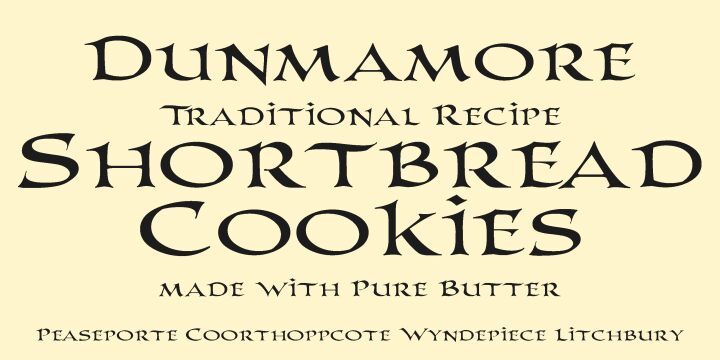
PR-Columban from PR Fonts is a free Celtic Gothic display font with the broad, stately shapes of manuscript lettering. Sharp wedge-like tips, changing stroke widths, and unusually stretched curves give the letters an ornamental, hand-cut edge.
Historical book covers and fantasy game titles both benefit from its old-world authority. It also suits folk festival posters and heritage packaging, especially when the lettering needs to suggest carved signs or decorated pages. In editorial work, it can turn a feature heading into a direct reference to Celtic manuscript traditions.
PR-Columban